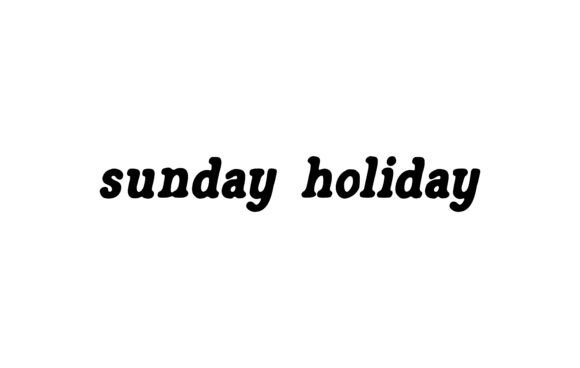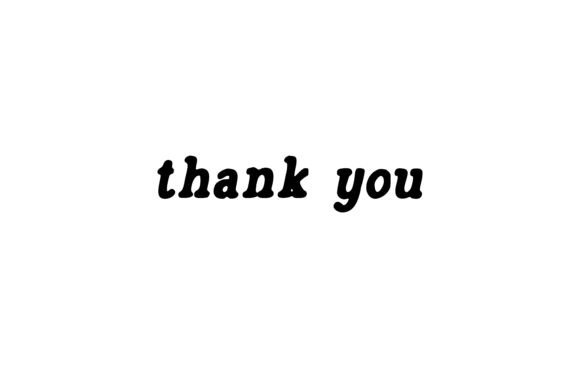
Introduction to Artisanova Font
ArtisaNova is an authentic serif font with a romantic touch.
Key Features of Artisanova Font
Why Choose Artisanova Font?
Artisanova Font offers exceptional quality and versatility, making it a valuable addition to your design toolkit. Whether you’re creating for personal projects or commercial use, Artisanova Font delivers professional results.